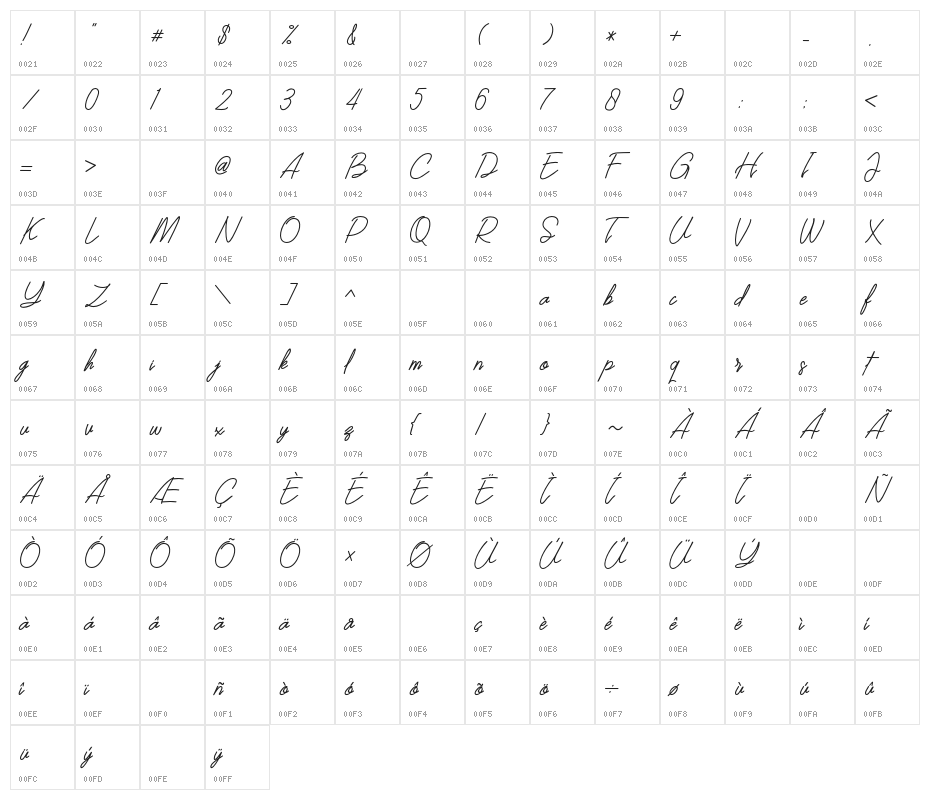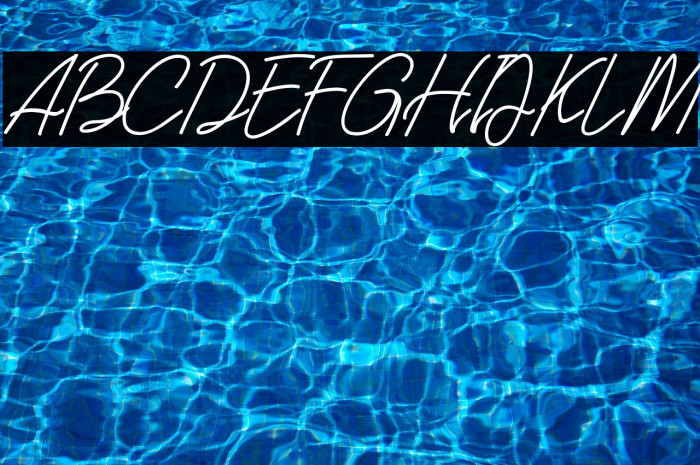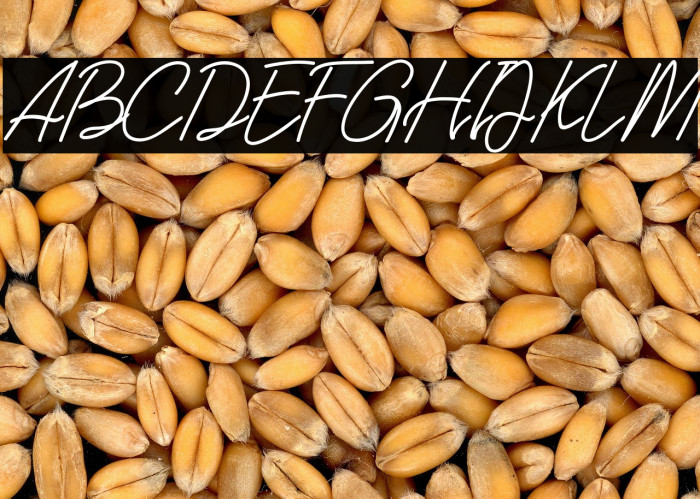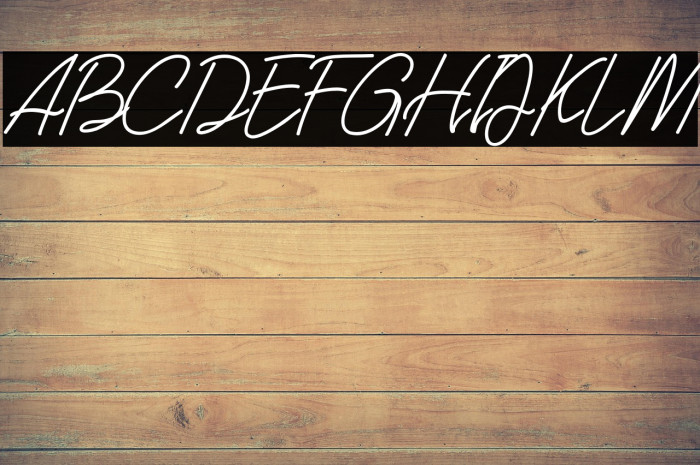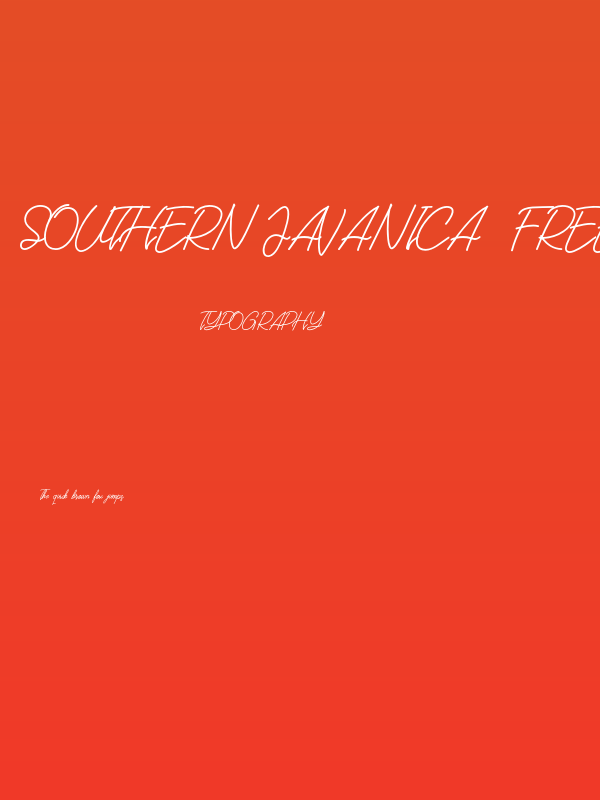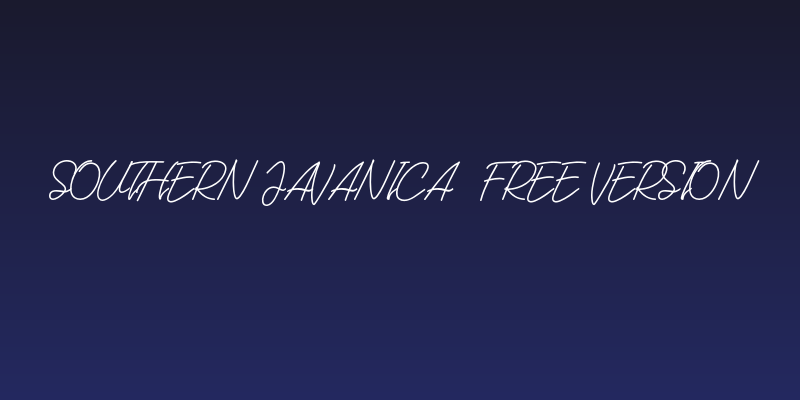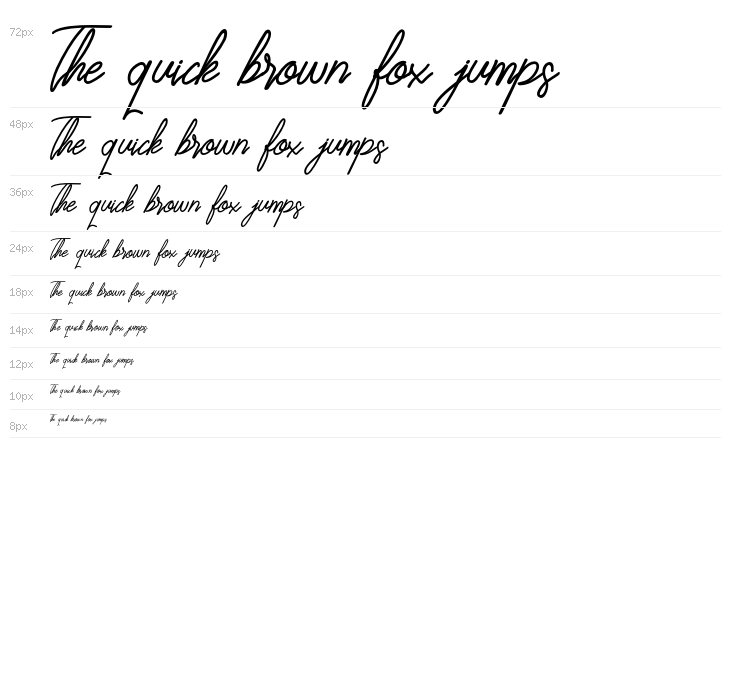
Southern Javanica Free Version Font
Southern Javanica Free Version Description
This font features a flowing, cursive style with elegant and elongated letterforms. The uppercase letters are bold and sweeping, while the lowercase letters maintain a consistent fluidity that enhances readability. The numerals are distinct yet harmonize well with the overall script style. Special characters are crafted with the same attention to detail, ensuring a cohesive look across all glyphs. The strokes are smooth and slightly varied in thickness, adding a touch of sophistication. This font is ideal for projects that require a personal, handwritten touch.
| Overall Style | Elegant, Handwritten |
| Use Case | Logos, Invitations, Personal correspondence |
| Proposed Projects | Ideal for wedding invitations, greeting cards, branding, and personal stationery. |